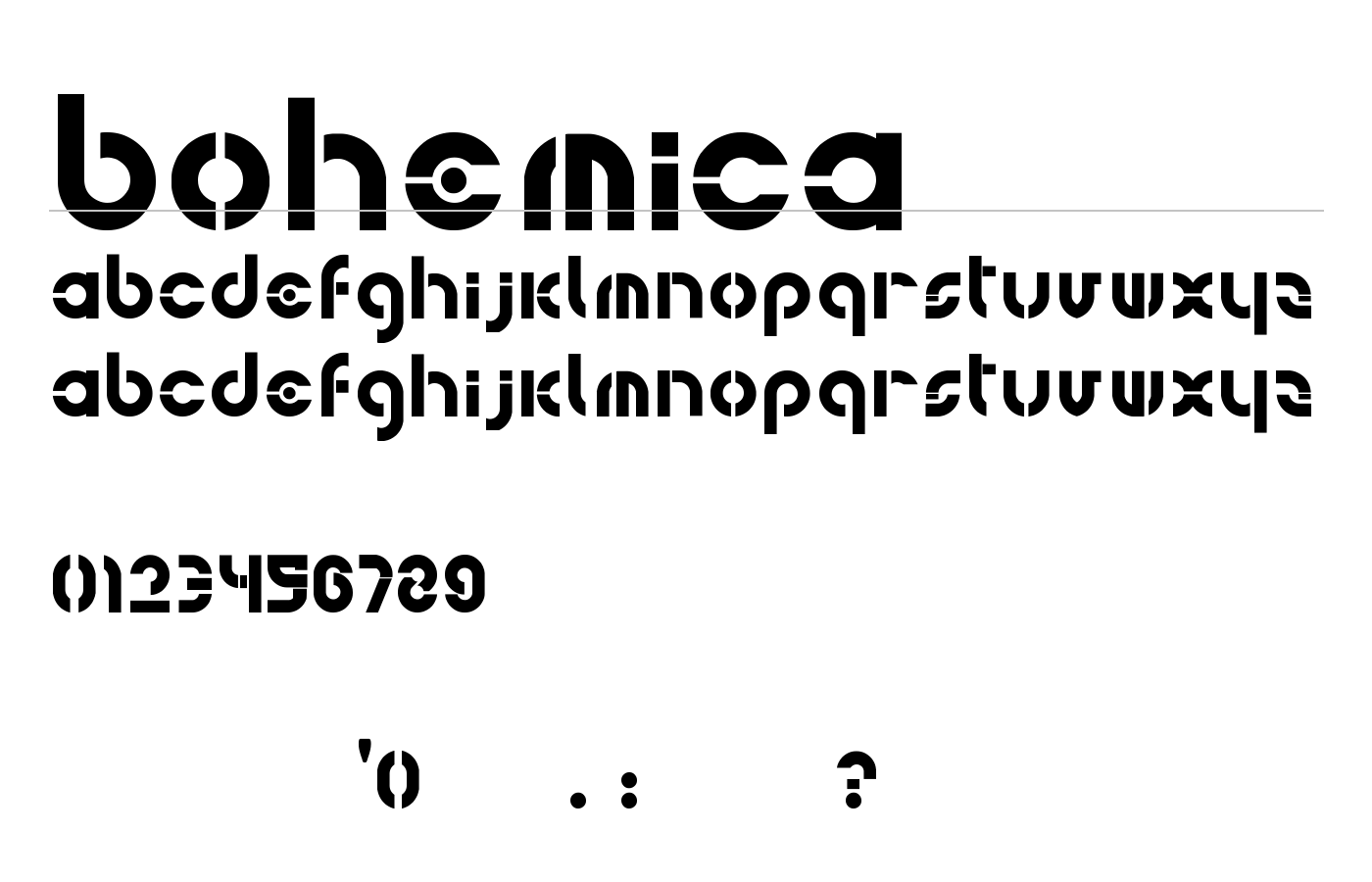
Bohemica is a bold, modern sans serif font characterized by its unique segmented design, where each letterform is divided, creating a striking geometric aesthetic. Its high-contrast and compact shapes give it a contemporary, digital feel, making it perfect for attention-grabbing headlines, branding, and creative projects that seek a futuristic and artistic vibe. This font excels in modern logos, posters, and editorial designs that want to convey innovation and boldness.
bohemica Font
About bohemica Font